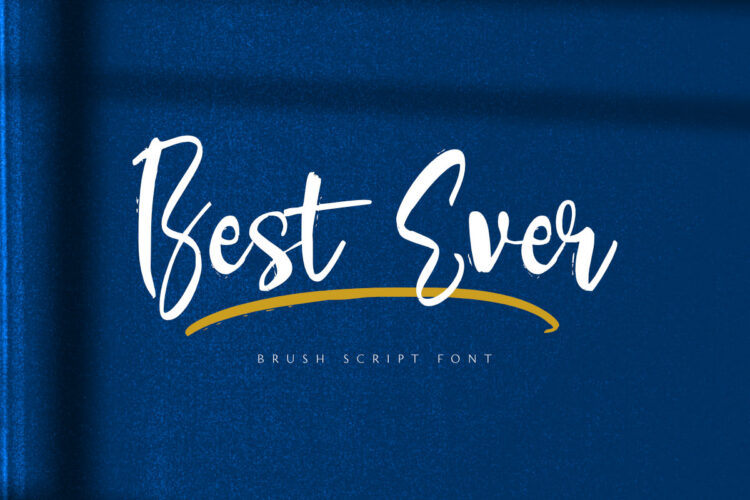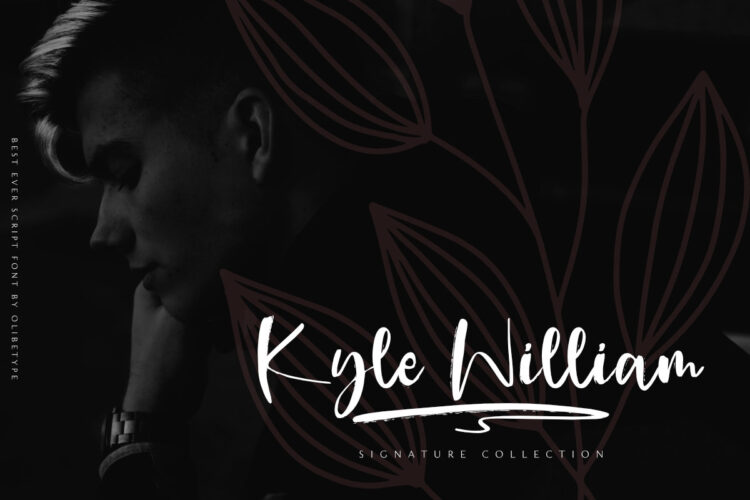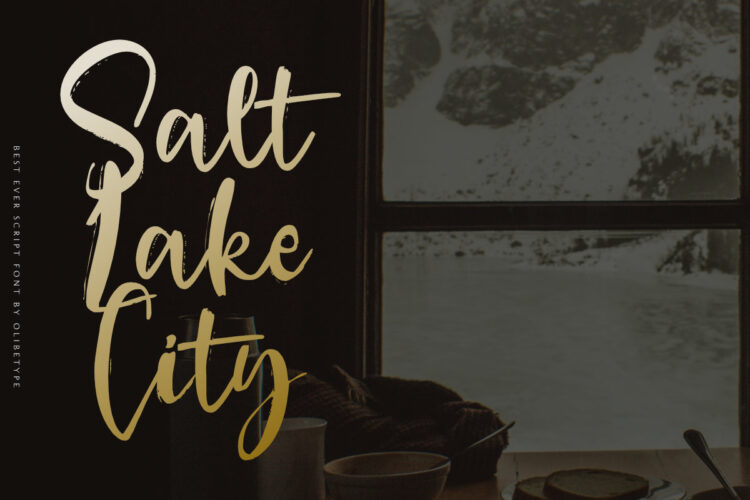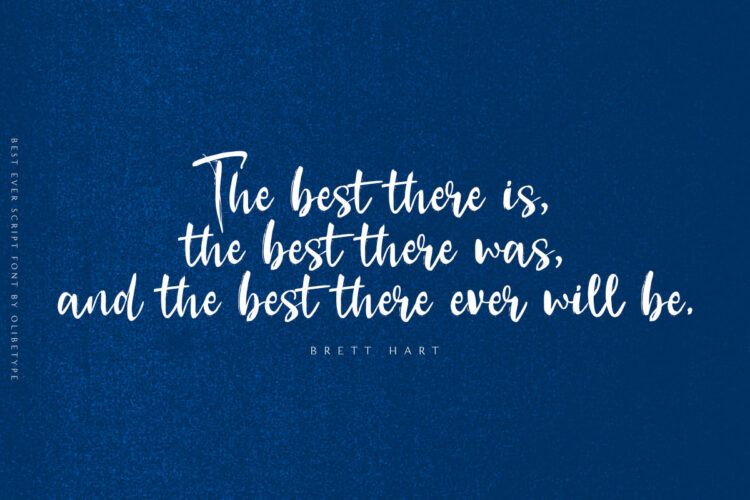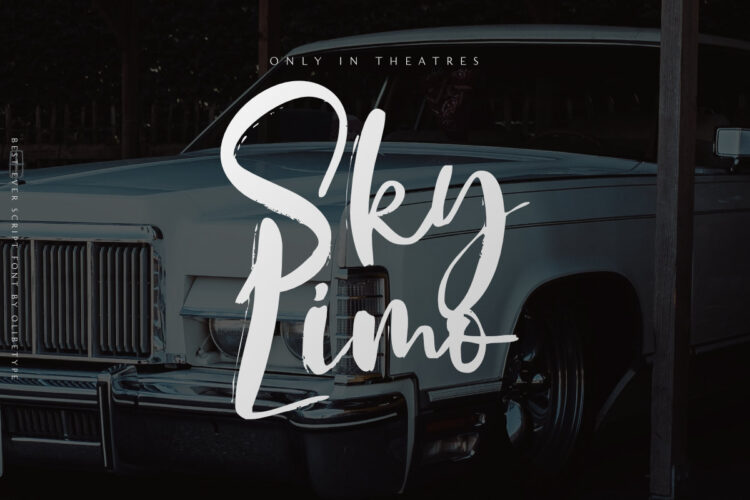
Best Ever is a cool and trendy-styled script font. It looks stunning on any poster flyer or print.
This font supports Multi-Languages, including Afrikaans Albanian Catalan Danish Dutch English Estonian Finnish French German Italian Norwegian Portuguese Spanish Swedish Zulu.
Features :
- Basic Latin A-Z & a-z,
- Ligatures & swashes